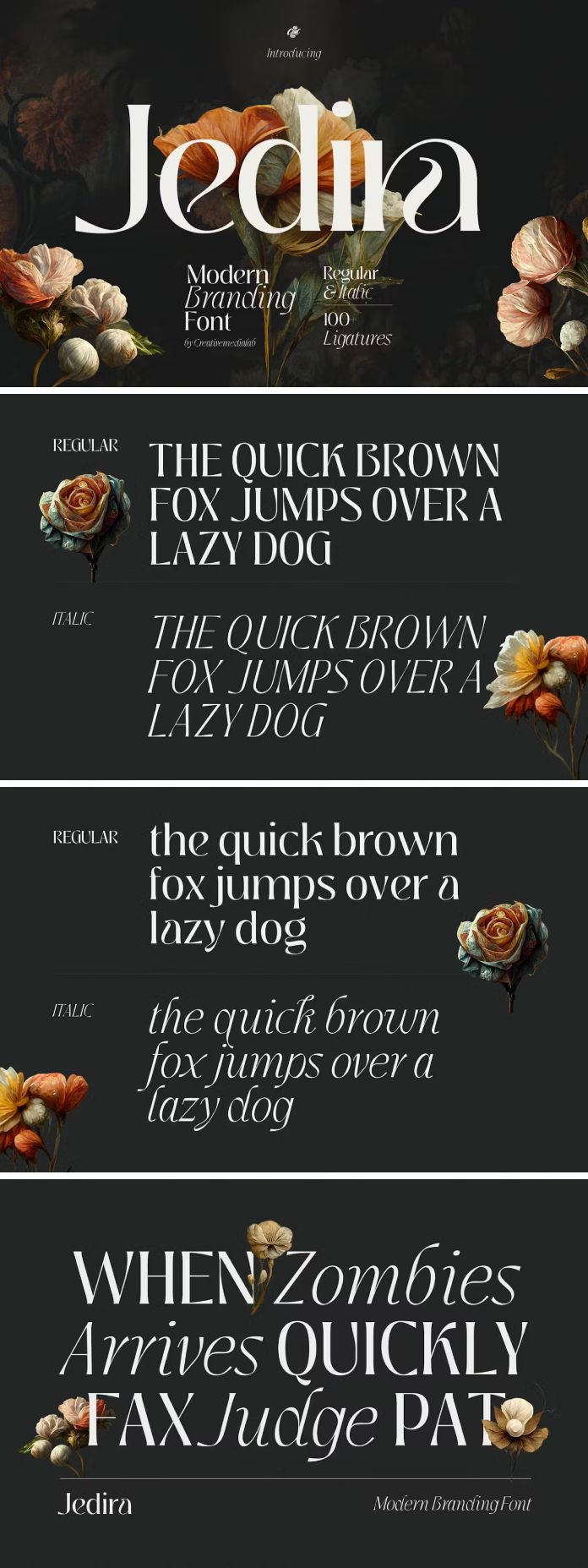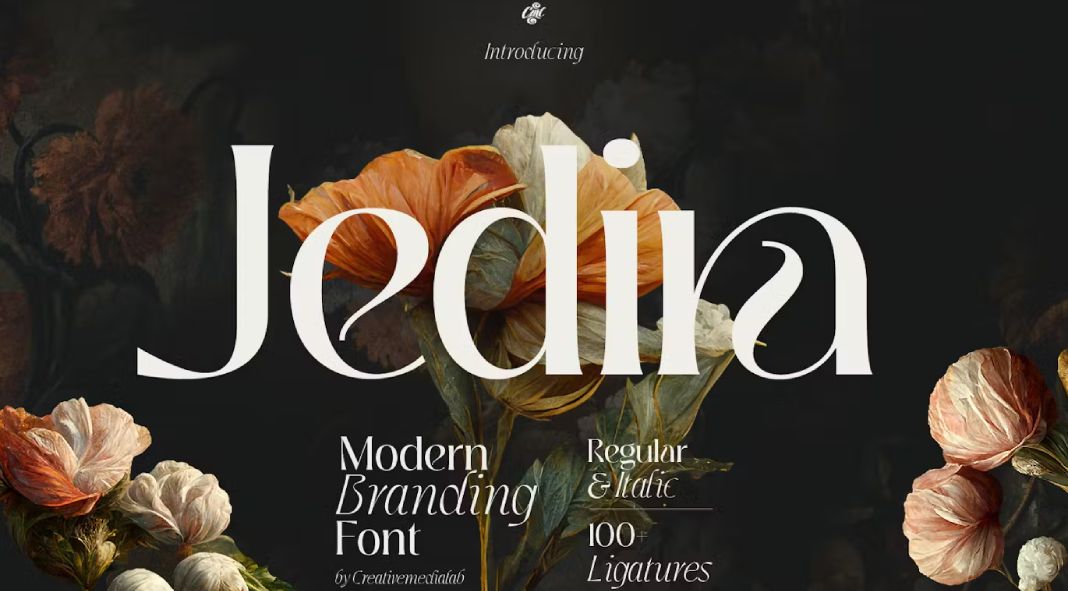
Jedira: A Typeface That Dances with Elegance 🌟
In the heart of the digital atelier, where pixels and curves waltz, Creative Media Lab birthed a masterpiece: Jedira. This typeface, like a well-tailored tuxedo, exudes sophistication and flair. Let us delve into the enchanting world of Jedira, where each glyph whispers secrets of timeless elegance.
The Genesis
Jedira emerged from the fertile minds of the Creative Media Lab artisans. Their brushes, not dipped in ink, but in ones and zeros, crafted this opulent font. With meticulous strokes, they imbued Jedira with an air of exclusivity—a secret handshake among the design cognoscenti.
The Aesthetics
Elegance is Jedira’s middle name. Its serifs curve like the arches of a grand cathedral, inviting you to explore its sacred halls. The matching italics—oh, they are the whispered confessions of moonlit rendezvous. When Jedira leans, it leans with purpose, like a seasoned dancer in a dimly lit ballroom.
The Ligatures
Ah, the ligatures! They are the clandestine meetings between letters, the hushed conversations at midnight. Jedira’s ligatures are like old friends who finish each other’s sentences. They link arms, creating harmonious connections that defy convention. When “f” and “i” intertwine, they form a secret society—a cabal of elegance.
Versatility Unleashed
Jedira is no wallflower. It pirouettes across mediums, leaving its mark on every canvas it graces:
- Branding: Picture Jedira embossed on a luxury handbag or etched into the spine of a leather-bound notebook. It whispers, “This brand knows grace.”
- Web Design Projects: Jedira dances through web pages, its ligatures weaving narratives. It beckons users to linger, to explore, to fall in love with pixels.
- Logos: Imagine Jedira as the emblem of a high-end perfume. Its curves evoke sensuality; its serifs promise sophistication.
- Fashion Concepts: Jedira struts down the runway, its italicized “J” a flourish of rebellion. It’s the font that makes couture gowns sigh with envy.
The Whispers
Jedira has secrets. Its glyphs murmur tales of moonlit escapades, of whispered promises in Parisian cafés. When you type with Jedira, you become part of its story—a protagonist in a novel of elegance.
The Verdict
In the grand ballroom of typefaces, Jedira twirls, its ligatures brushing against the velvet curtains. It bows to tradition but winks at audacity. It is the font that sips champagne and dances barefoot in the rain.